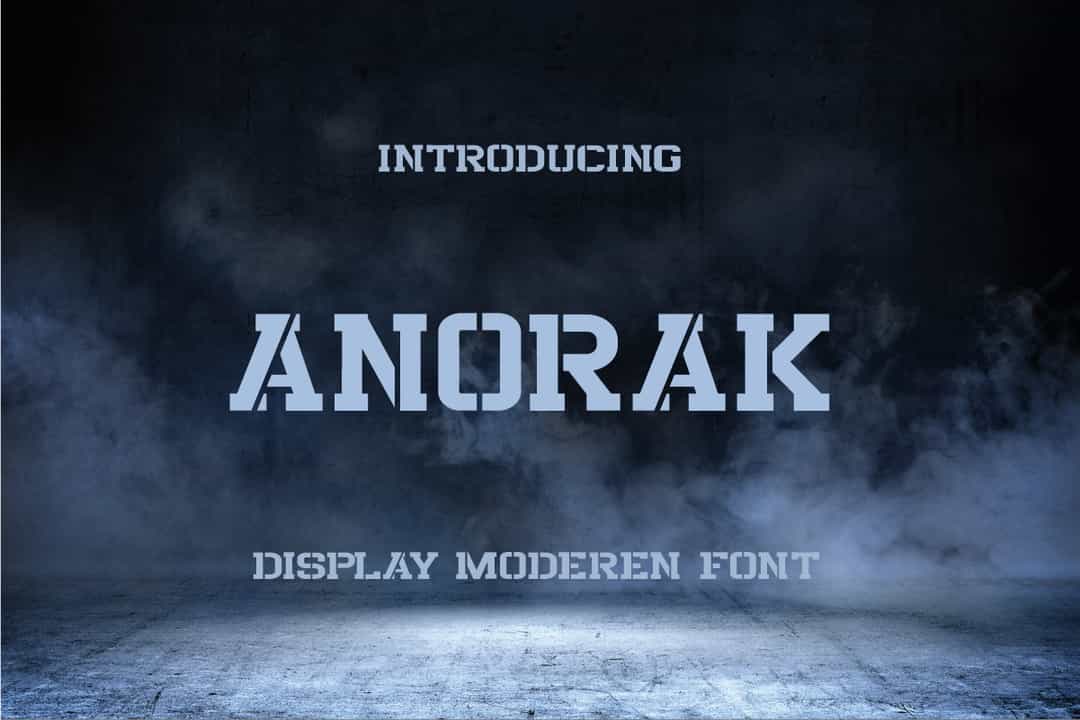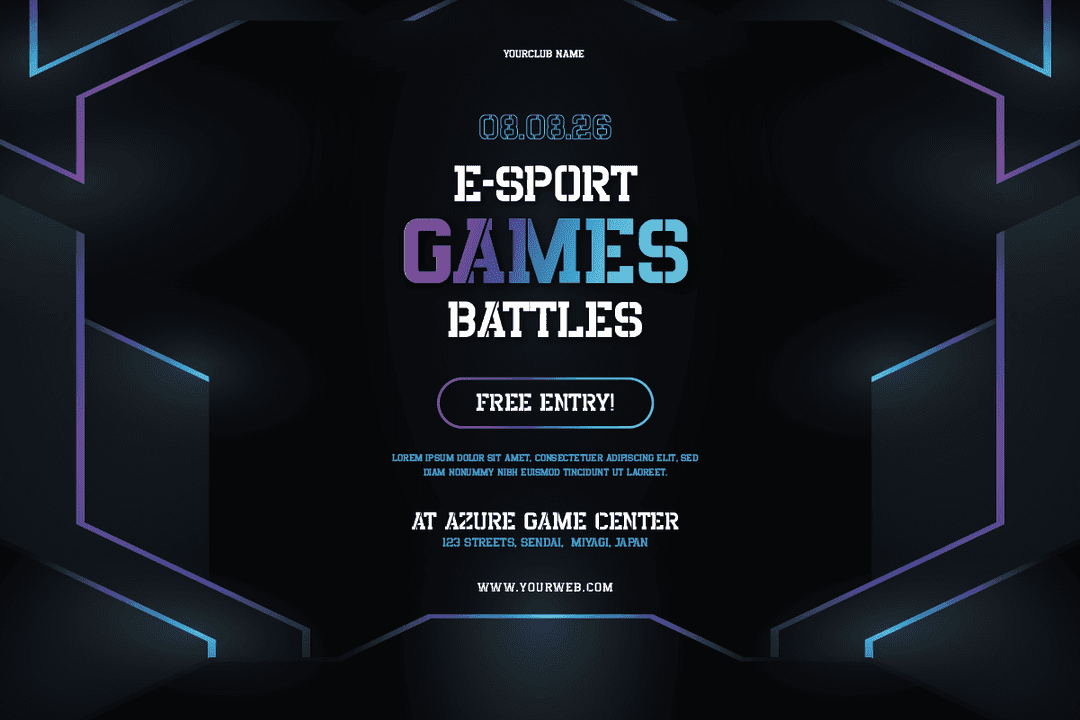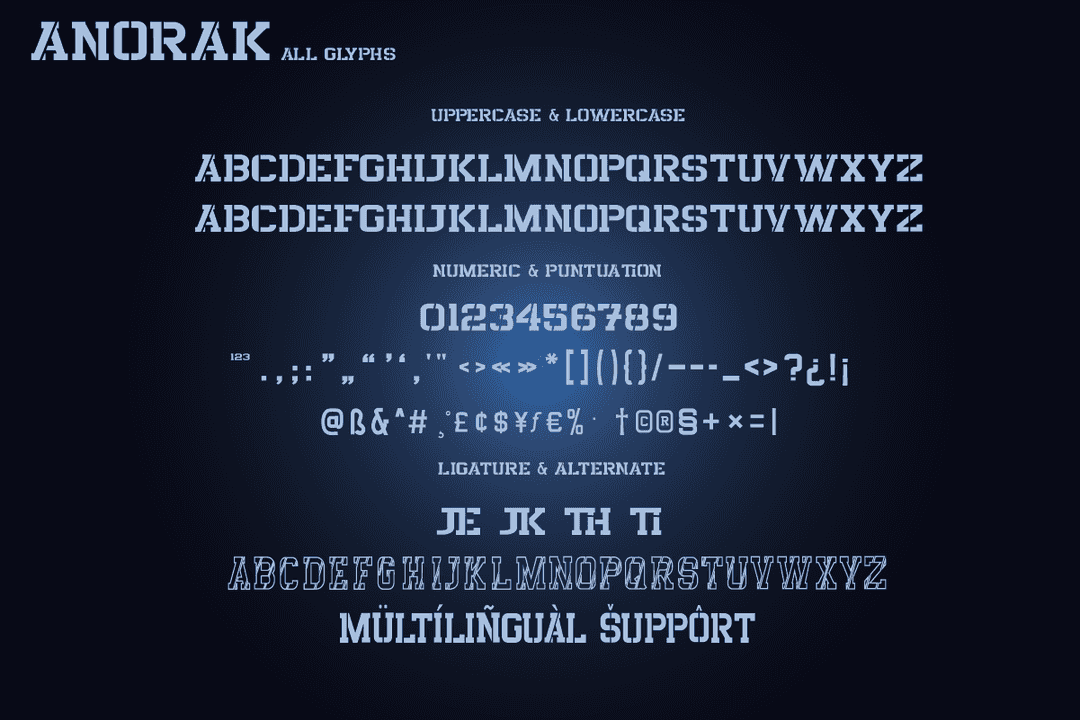
Anorak font is bold and thick. This chunky font will bring your designs to life! Anorak has been encoded with PUA, so you can easily access the glyphs and Swashes!